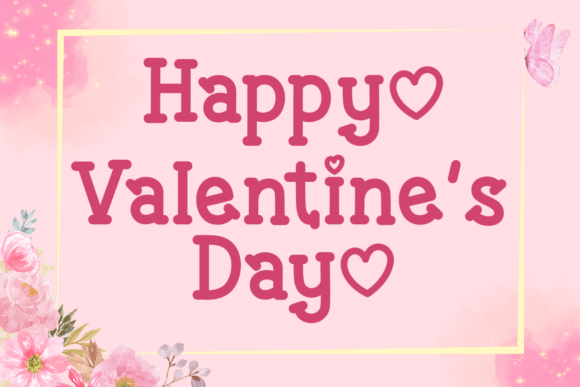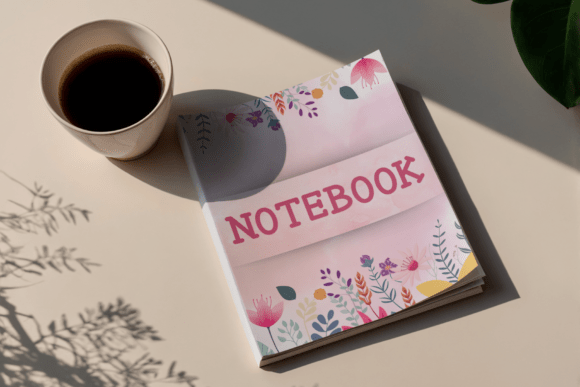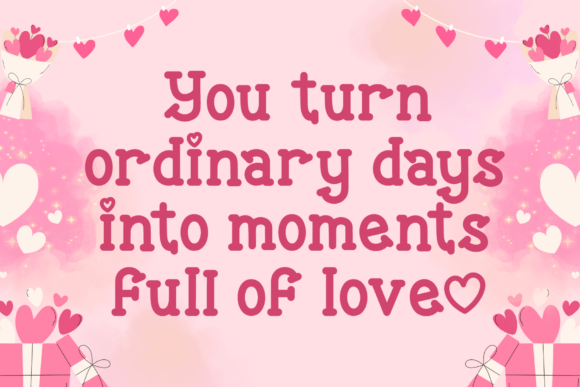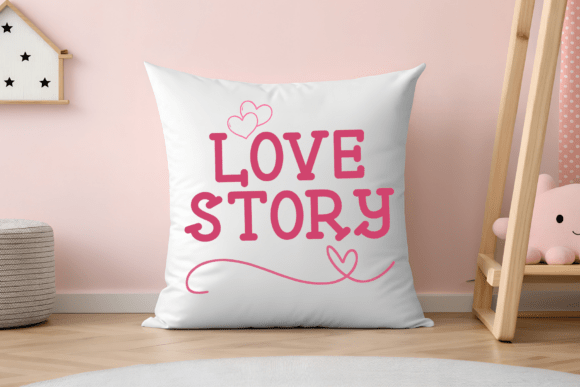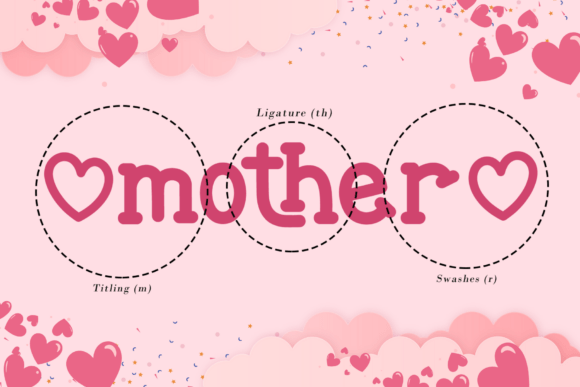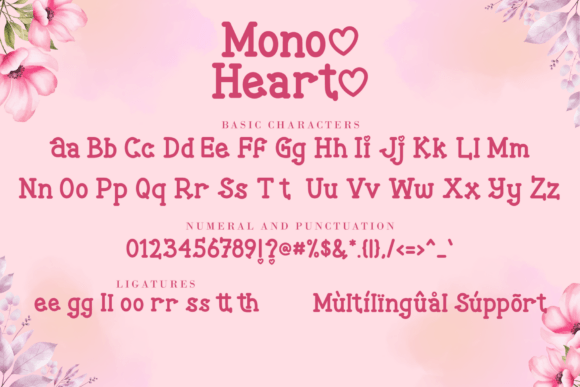
Introduction to Monoheart Font
Monoheart is a soft and playful handwritten font created especially for love-inspired designs.
With its relaxed handwriting style and smooth curves, Monoheart brings a warm and romantic atmosphere to any project This font works perfectly for Valentine cards, wedding stationery, love quotes, journals, and social media graphics.
Key Features of Monoheart Font